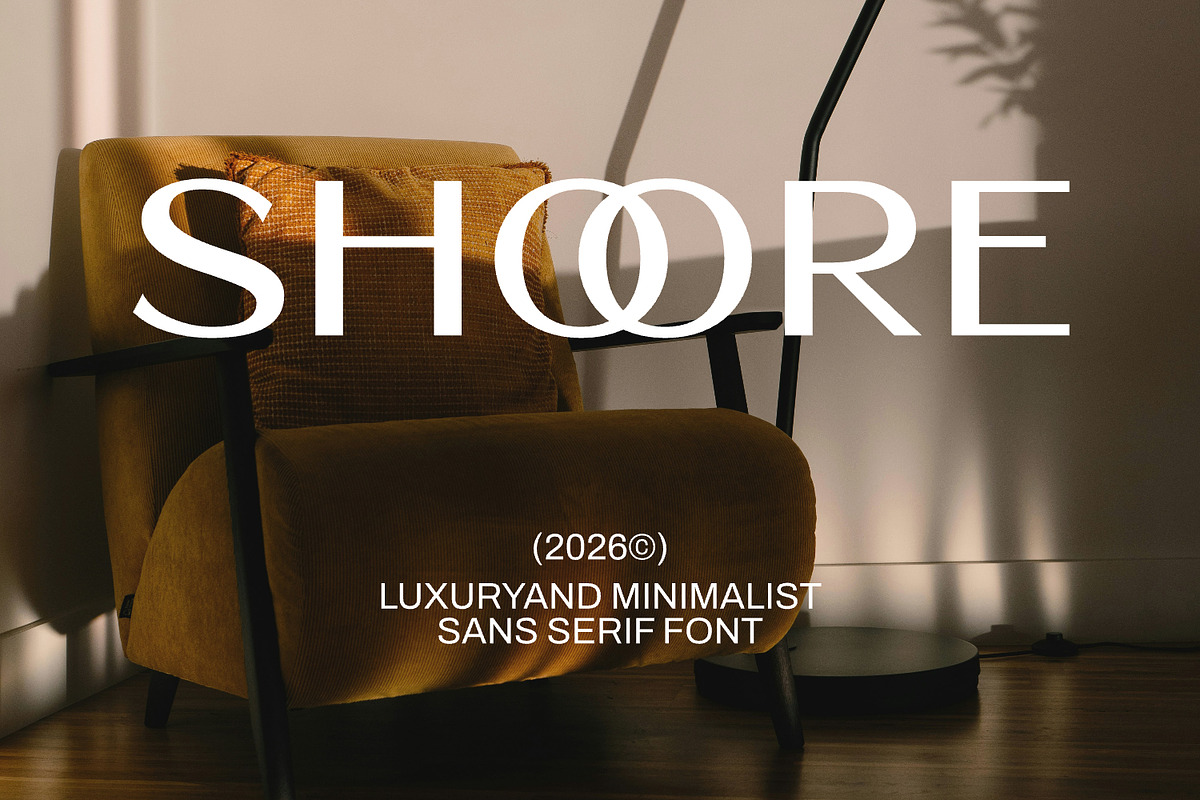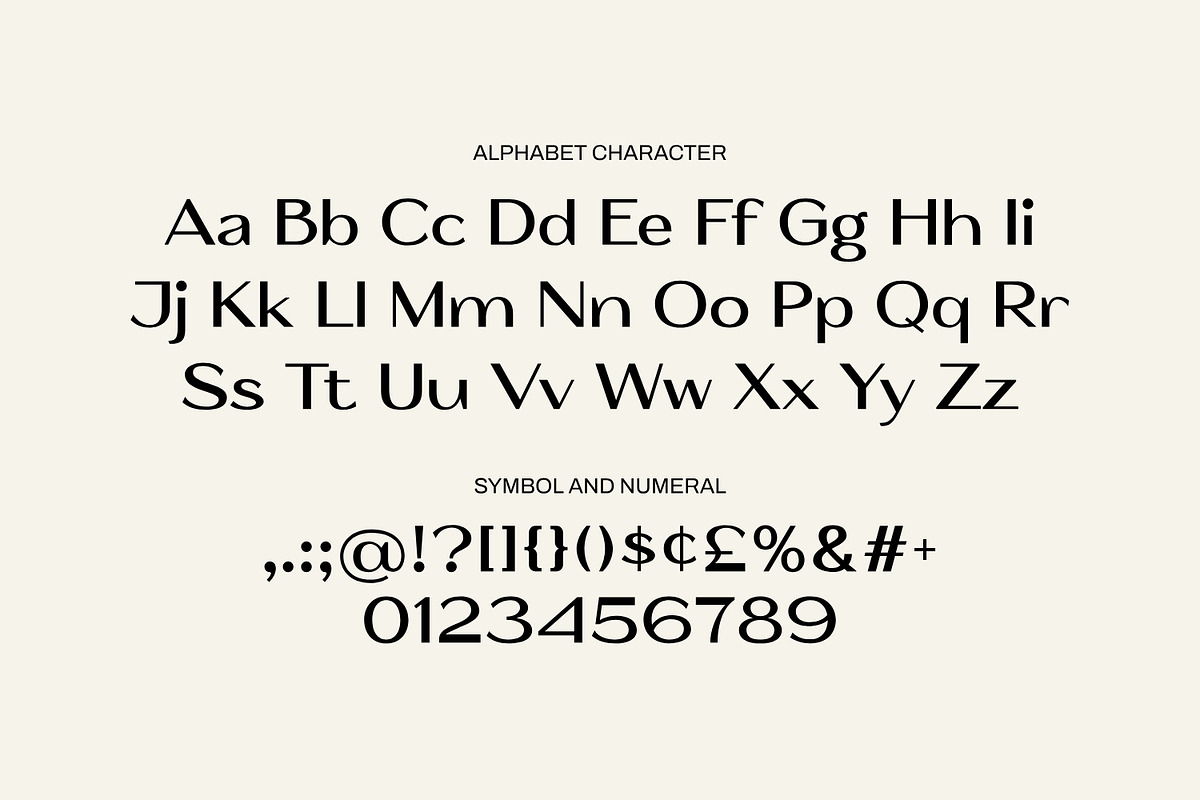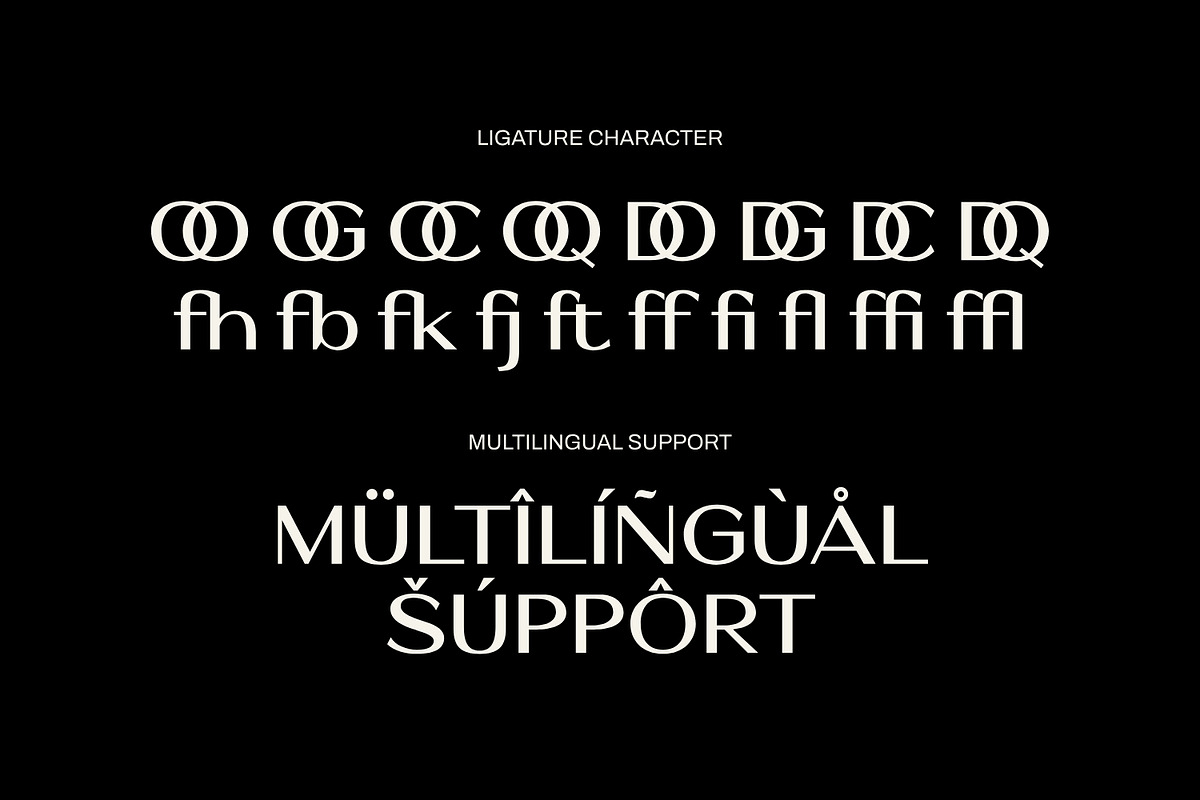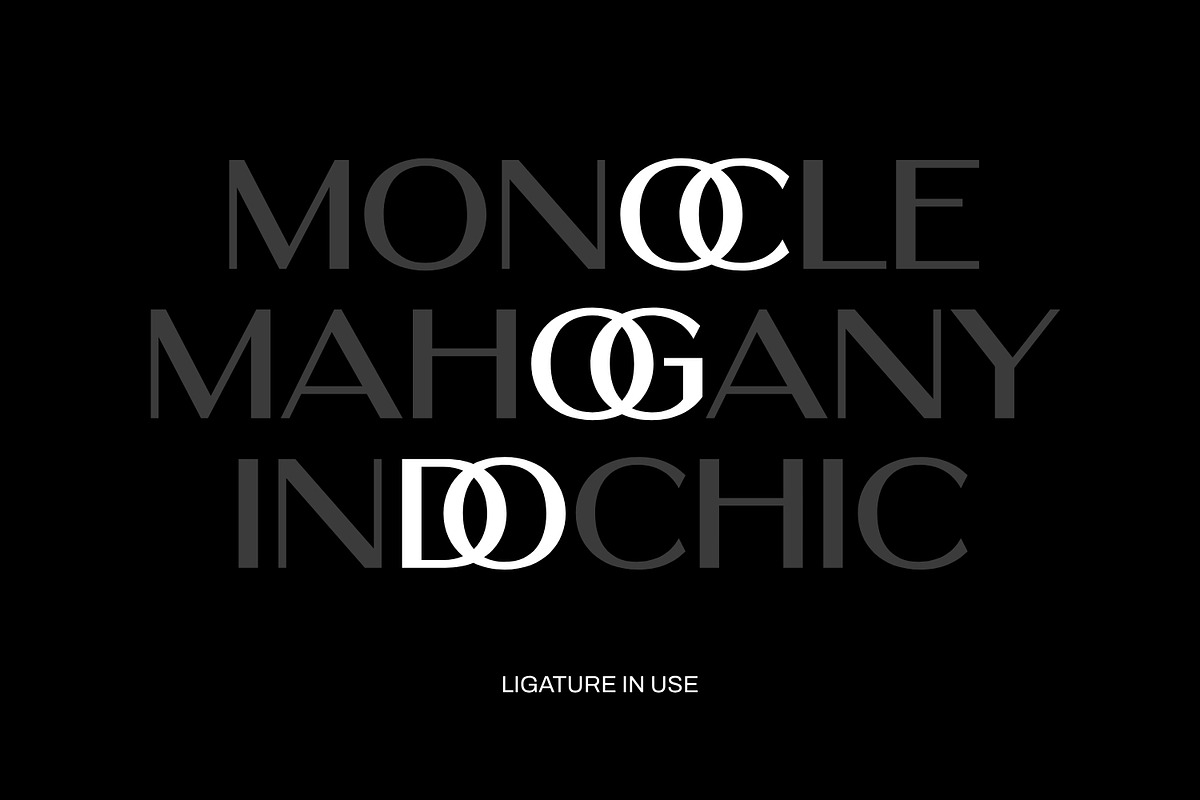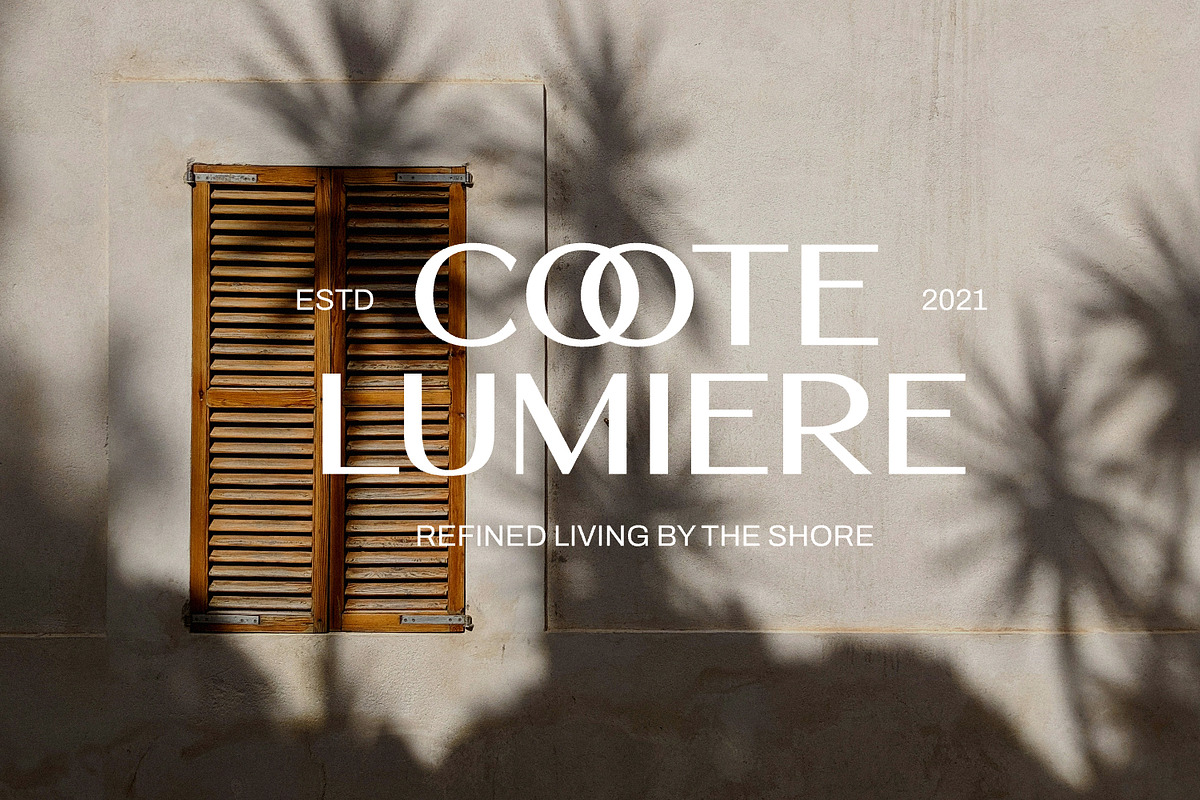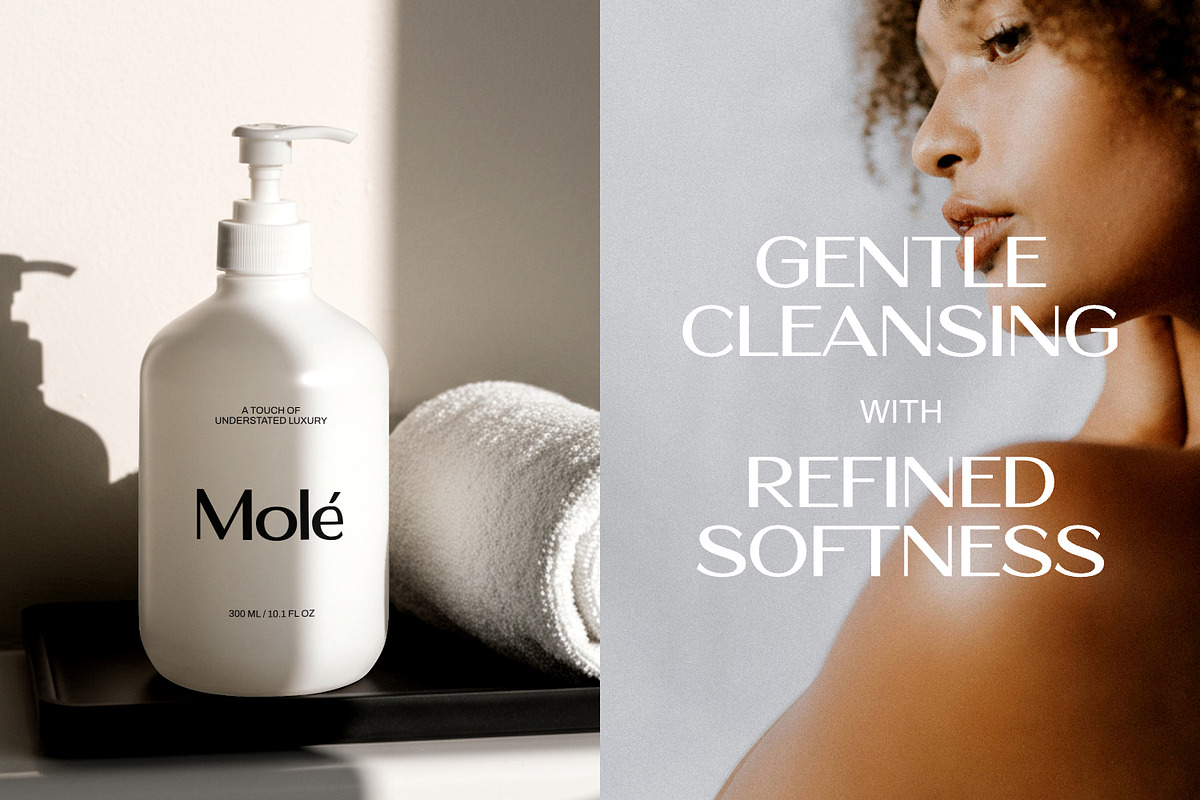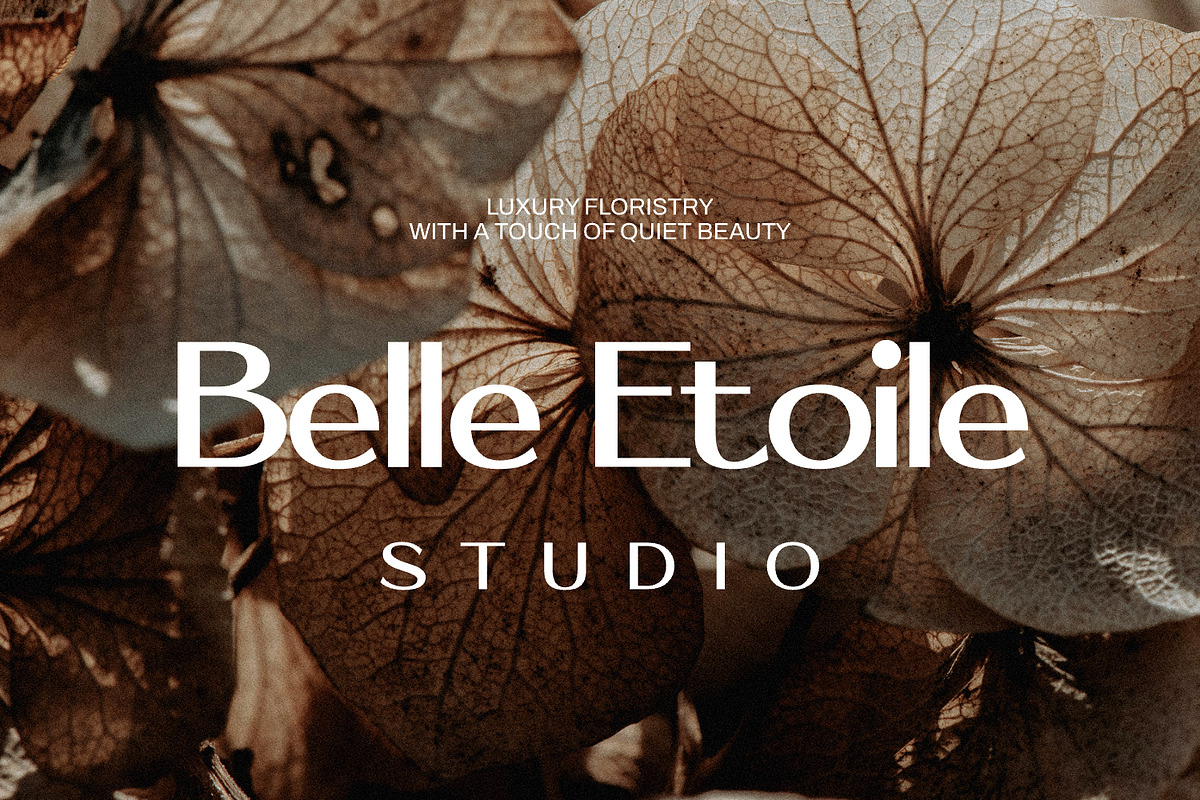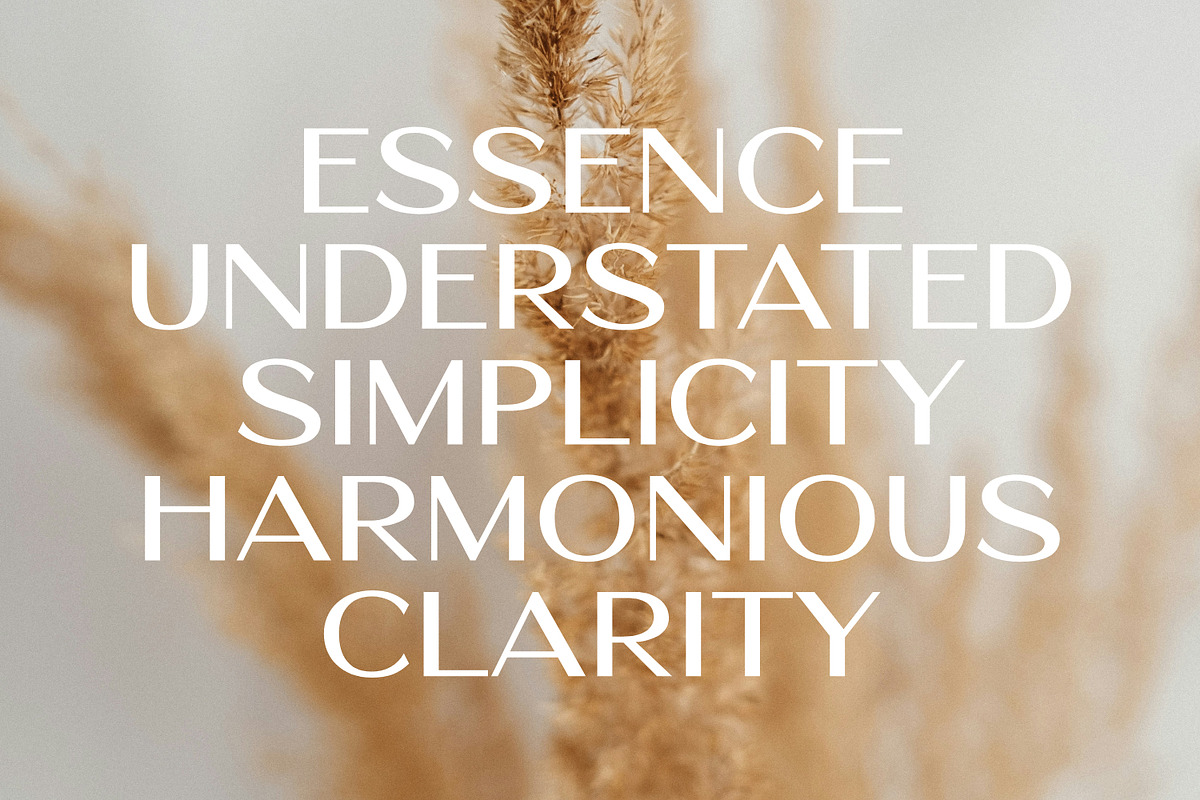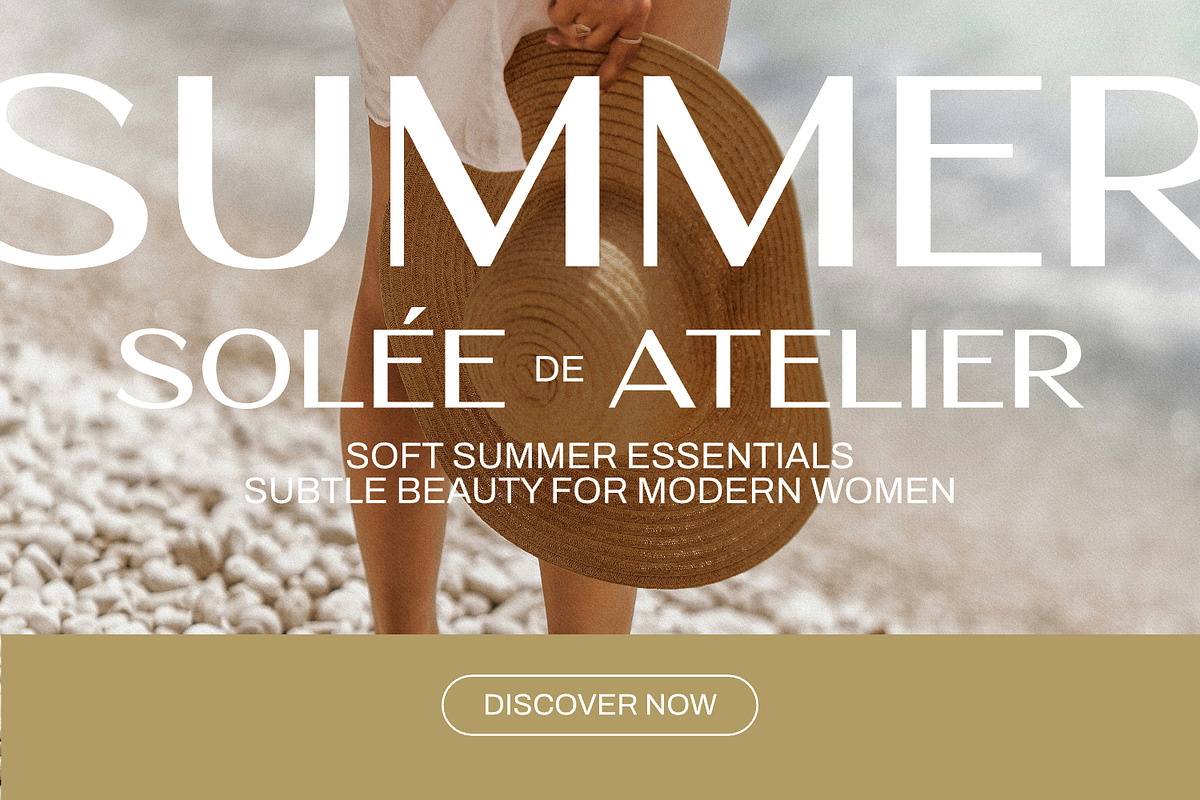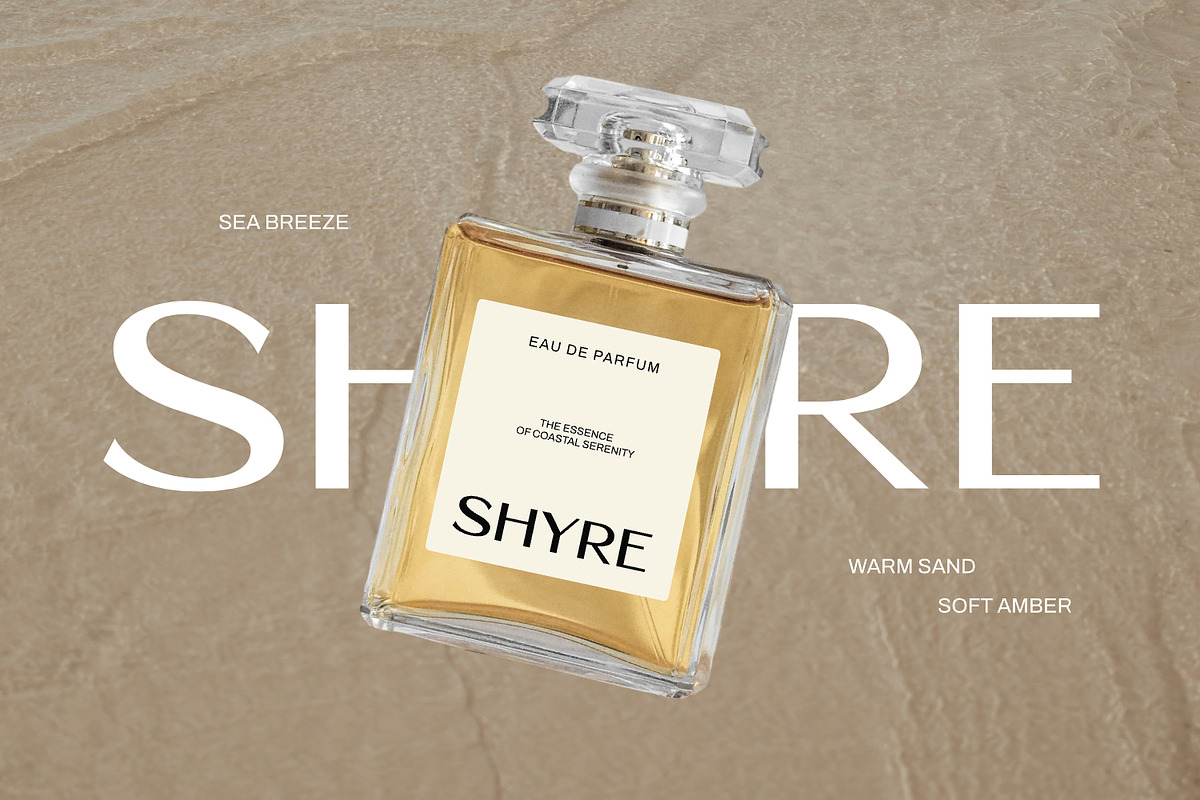
Shoore
Shoore is a modern luxury sans serif font designed for elegant, minimalist, and high-end visual identities. With its clean geometry, balanced proportions, and refined simplicity, Shoore delivers a timeless aesthetic that feels both contemporary and sophisticated.
Shoore works beautifully across branding, editorial layouts, fashion projects, premium packaging, websites, and social media designs. Its smooth curves and confident letterforms create a professional and upscale impression without feeling heavy or overpowering.